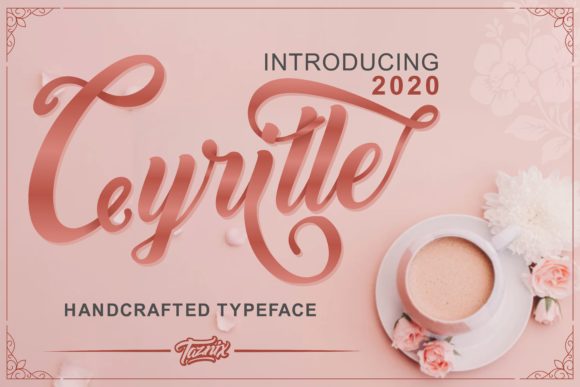
Cyrille Font
Introducing the Cyrille Font: A Timeless Masterpiece for Your Special Day
Adorn your wedding invitations, save-the-dates, and other heartfelt creations with the exquisite Cyrille font. This masterpiece is a testament to the enduring beauty of classic calligraphy, reimagined with a touch of contemporary charm.
Crafted with meticulous care, Cyrille boasts a captivating symphony of smooth lines, graceful curves, and alluring glyphs. Its varying baseline adds a dynamic rhythm to your text, evoking a sense of elegance and sophistication.
Effortless Style with PUA Encoding
Indulge in the convenience of PUA encoding, which grants you effortless access to a treasure trove of enchanting glyphs and swashes. Adorn your designs with intricate flourishes, playful hearts, and delicate accents that will elevate your creations to new heights of artistry.
Special Features for Limitless Creativity
Unleash your creativity with Cyrille's wealth of special features. Experiment with alternate glyphs to create captivating variations, and explore the expressive possibilities of ligatures. The possibilities are endless, ensuring that your designs will stand out from the ordinary.
A Font for the Ages
Cyrille is more than just a font; it's an investment in timeless beauty. Whether you're crafting unforgettable wedding memorabilia or designing heartfelt keepsakes, this font will forever capture the essence of your special moments.
Imagine the awe-inspiring invitations that will announce your impending nuptials, the heartfelt thank-you cards that will convey your gratitude, and the treasured keepsakes that will preserve the memories of your special day. With Cyrille, your words will dance across the page with an elegance that will leave a lasting impression.